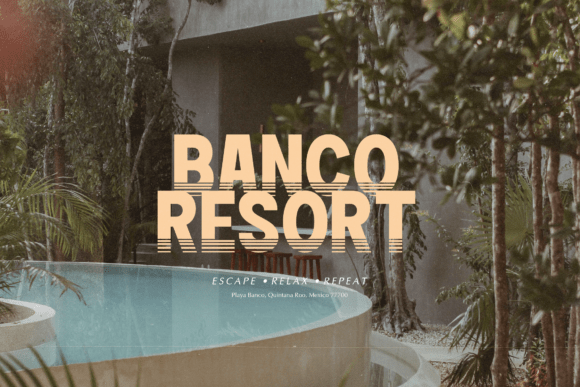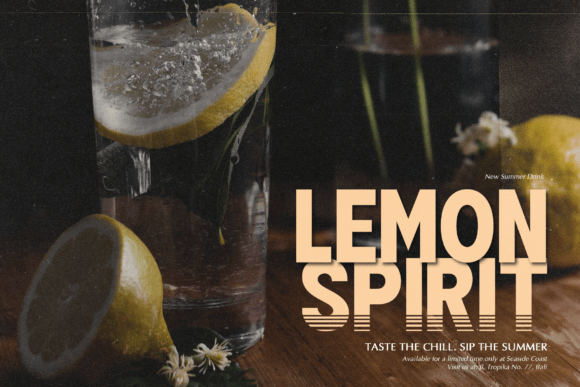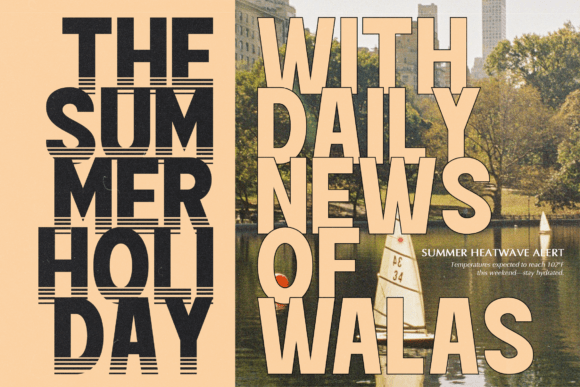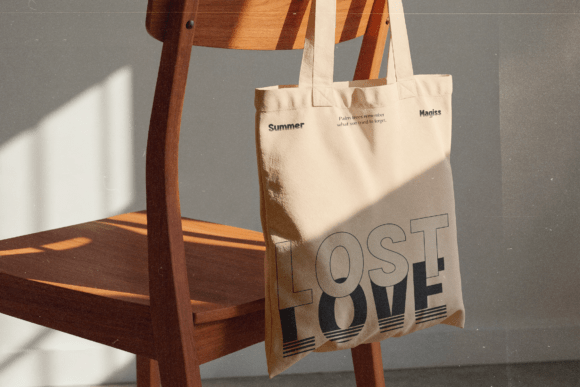
Introduction to Prism Tropic Font
Prism Tropic is a bold geometric sans serif font with a stylish striped-line effect, inspired by retro beach vibes and modern editorial layouts.
It comes in two variations: solid and outlined with horizontal lines, perfect for creating a striking contrast Ideal for poster designs, travel branding, summer event flyers, or trendy digital content, this font captures a sunny, modern aesthetic with a nod to vintage flair.
Key Features of Prism Tropic Font